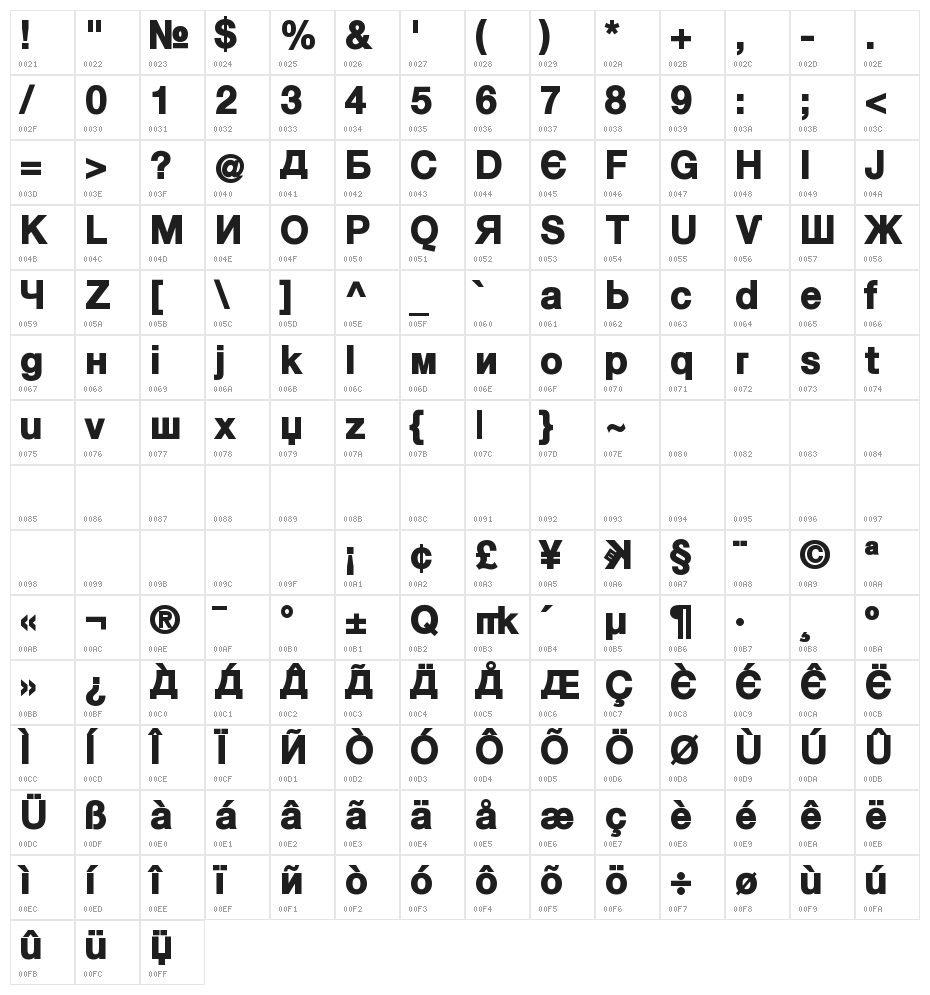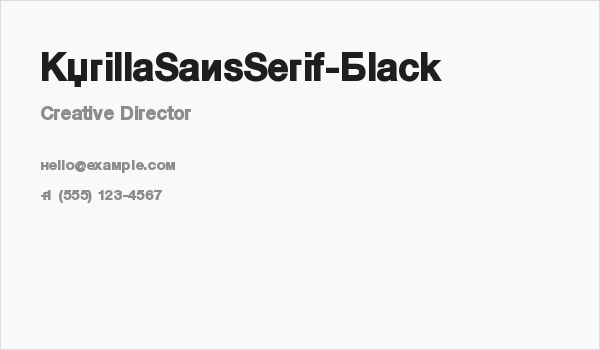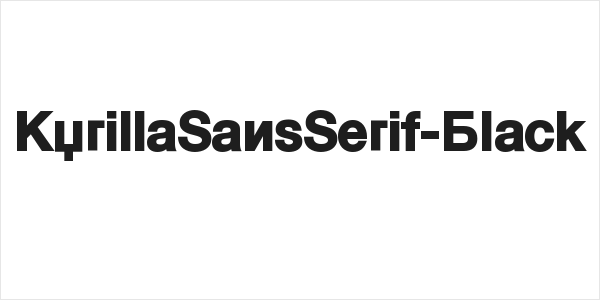
KyrillaSansSerif-Black Font
KyrillaSansSerif-Black Description
This font features a bold and robust sans-serif style with a strong presence. The characters are uniformly thick, providing a solid and impactful appearance. The uppercase and lowercase letters are well-proportioned, maintaining a consistent weight throughout. The numerals are clear and easily distinguishable, making them suitable for various applications. The special characters are designed to match the overall boldness, ensuring a cohesive look across all elements. This font's clean lines and modern aesthetic make it versatile for both digital and print media.
| Proposed Projects | Ideal for branding, headlines, posters, and digital media where a strong visual impact is needed. |